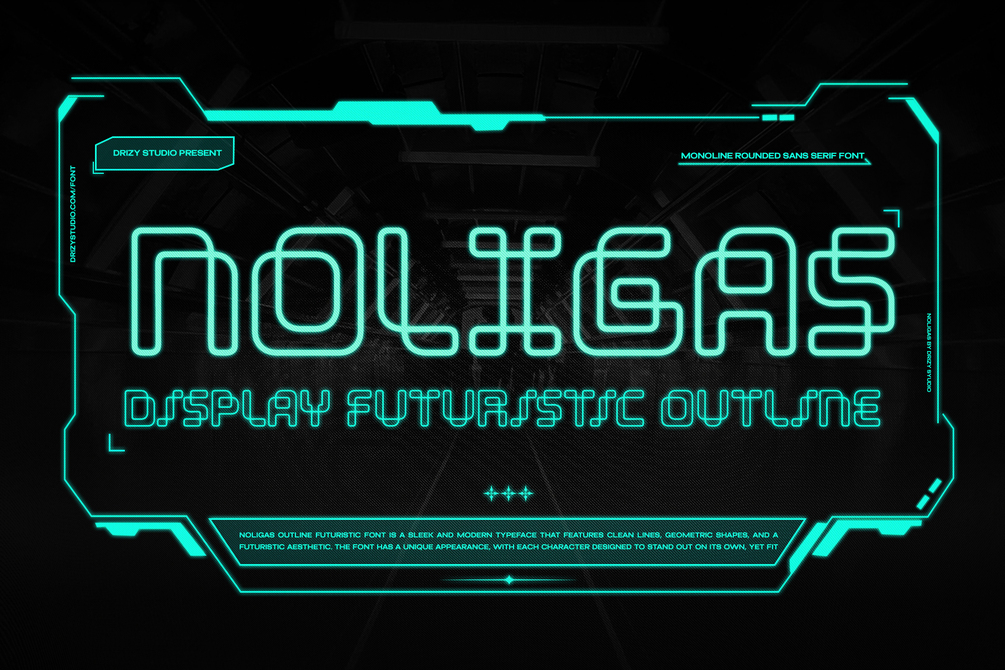
Noligas – Display Futuristic Outline Font
Noligas – Display Futuristic Outline Font is a cutting-edge display futuristic outline, designed to bring a sleek and modern edge to your creative projects. With its precise lines and minimalist outline structure, Noligas captures the essence of high-tech aesthetics. The clean and geometric letterforms give Noligas a sharp, sophisticated look, while its outline style adds a sense of depth and innovation. Whether you’re crafting futuristic posters, tech-inspired logos, or neon-infused visuals, this font ensures that your designs stand out with a striking, modern appeal. Step into the future of typography with Noligas a font that blends minimalism with boldness, giving your designs a cutting-edge and visionary feel.